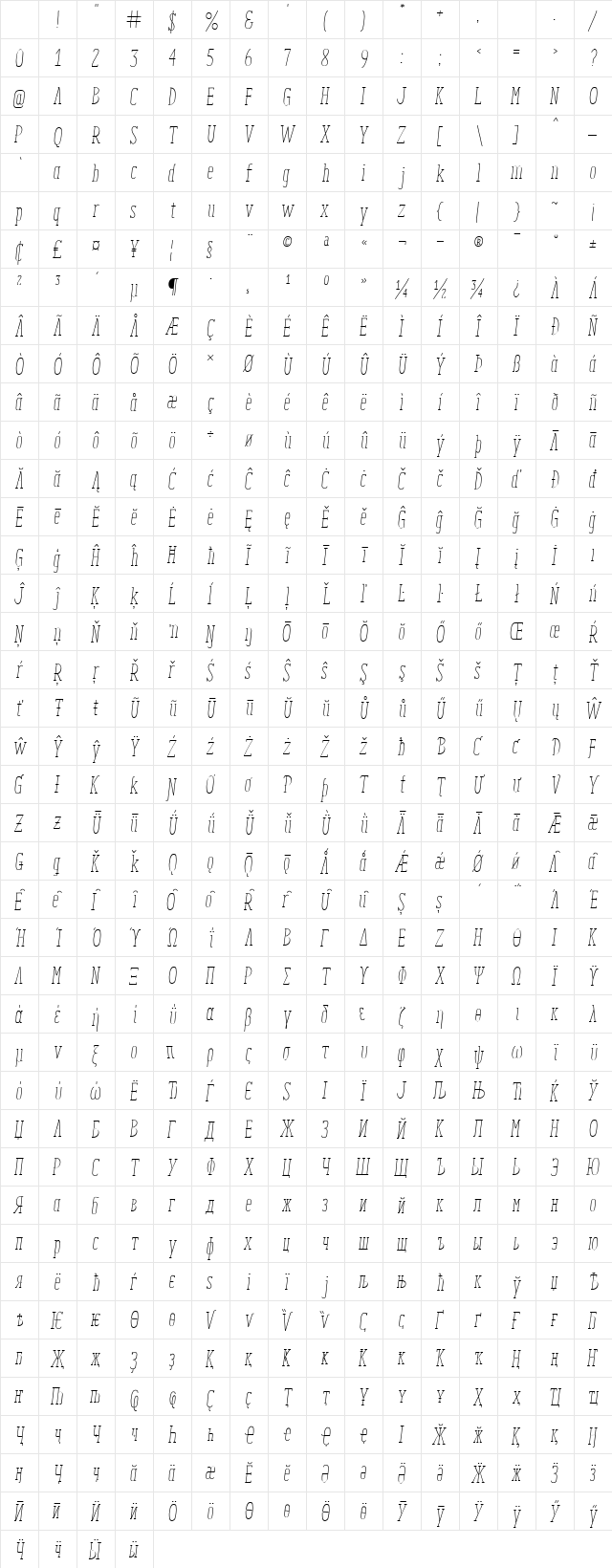
Complete Enyo Slab Light Italic glyph index. Displaying only characters natively supported by Enyo Slab Light Italic font.
Enyo Slab features prominent, blocky serifs that give it a confident, grounded presence - equally at home in editorial settings and bold branding work. The slanted form adds forward momentum and visual energy. Its slender proportions lend an understated elegance to any composition.